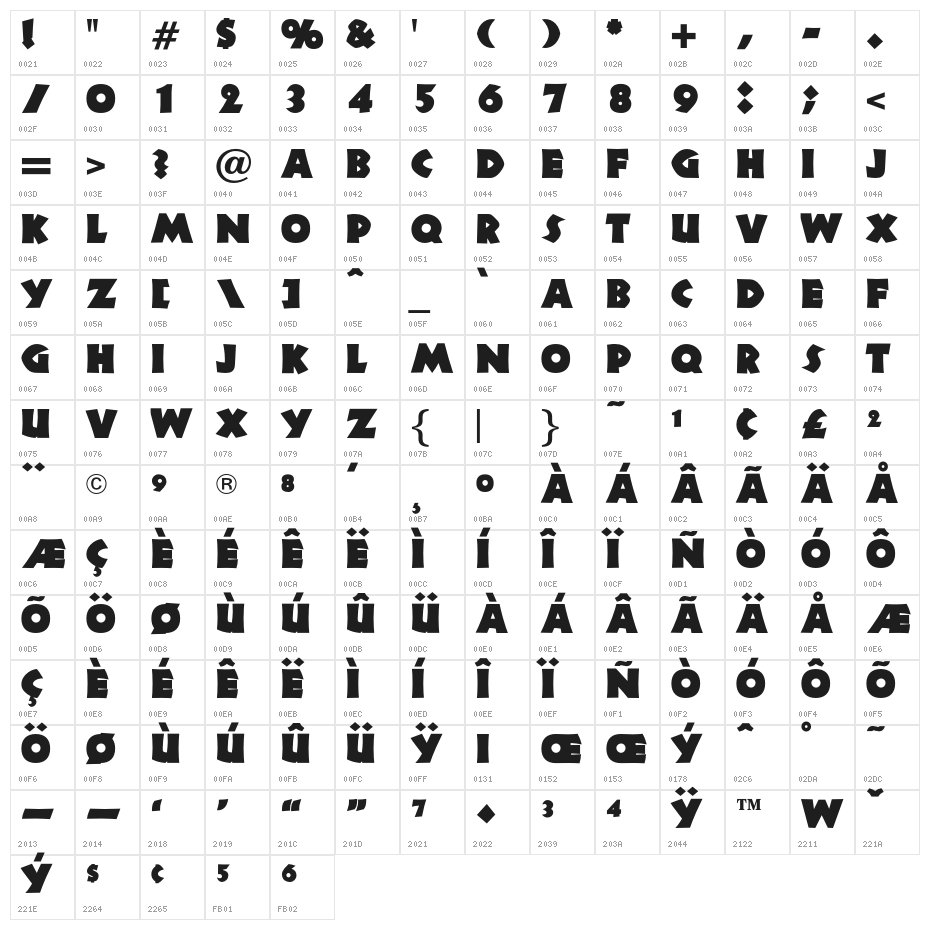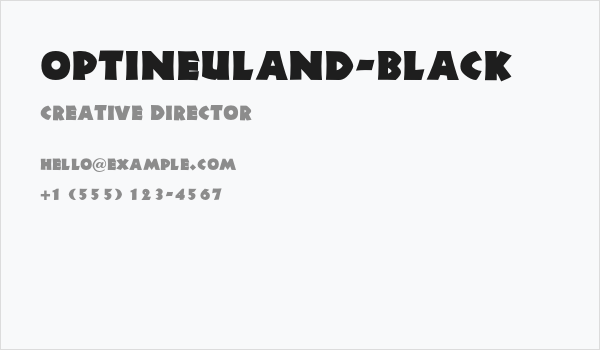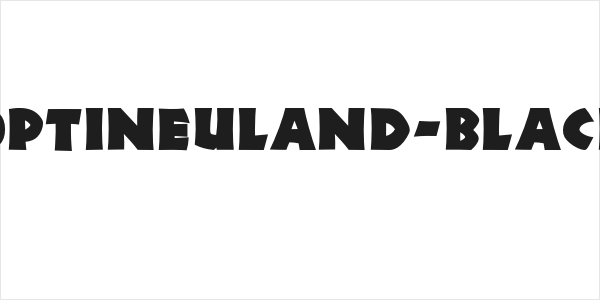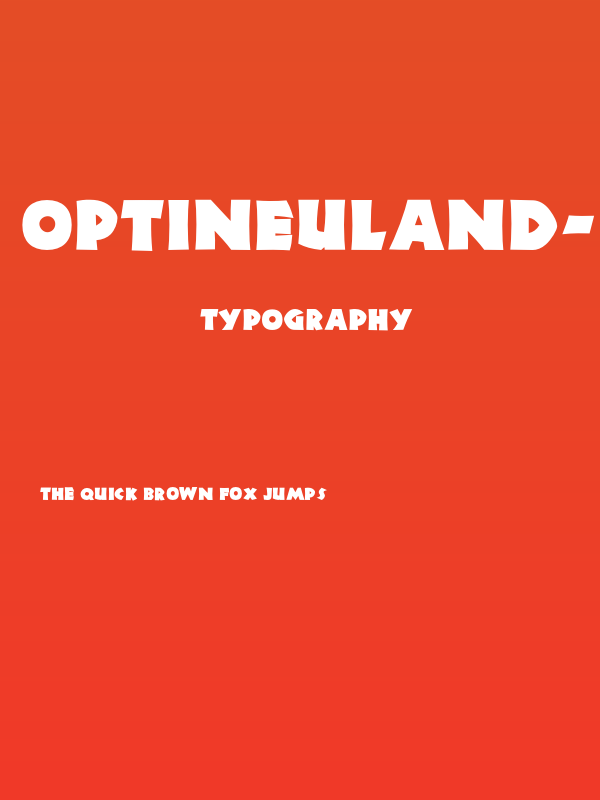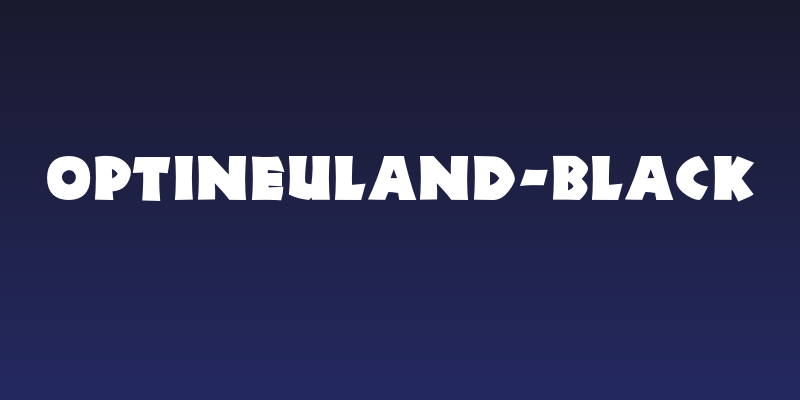
OPTINeuland-Black Font
OPTINeuland-Black Description
This font features bold, angular characters with a strong presence, making it ideal for impactful designs. The uppercase letters are particularly striking, with sharp edges and a slightly irregular form that adds a dynamic feel. The numbers and special characters maintain this bold aesthetic, ensuring consistency across all text elements. The font's unique style is reminiscent of early 20th-century design, offering a vintage yet timeless appeal. Its boldness and distinctive character shapes make it suitable for attention-grabbing headlines and logos.
| Proposed Projects | Ideal for posters, logos, branding materials, and any design requiring a strong, eye-catching typeface. |